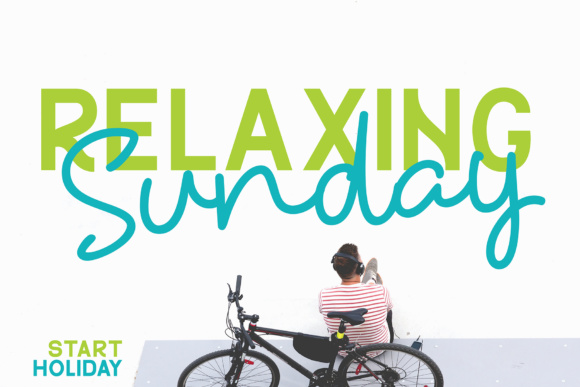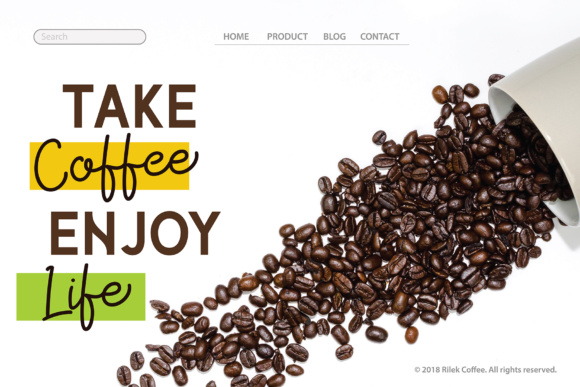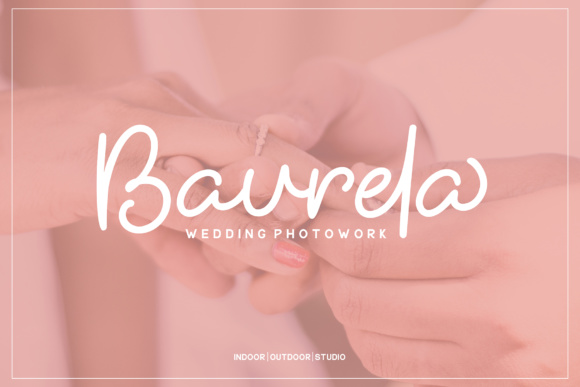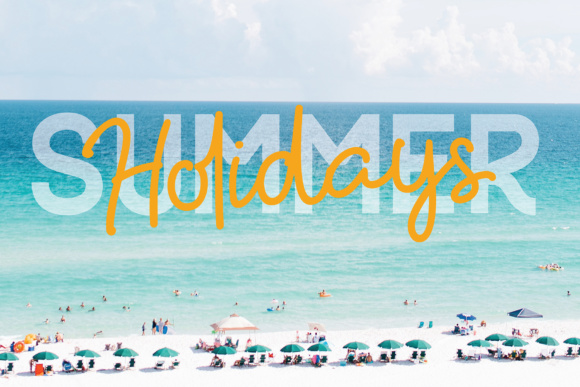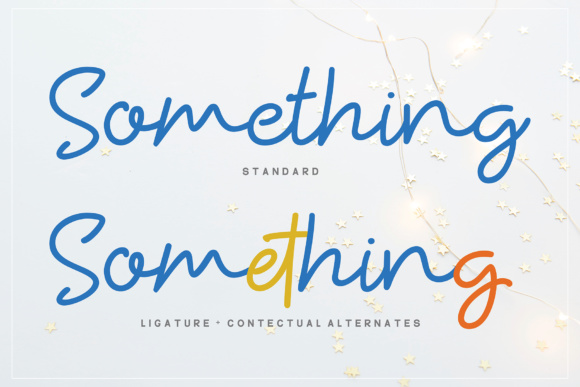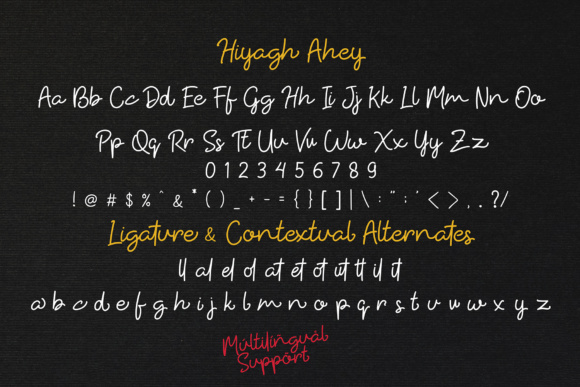
The Perfect Handwritten Touch: Unlocking the Power of the Hiyagh Ahey Font
You know that moment when you’re brainstorming ideas for a new project and the perfect font suddenly pops into your head? That’s exactly what happened when I stumbled upon the Hiyagh Ahey Font. Its unique handwriting style is a breath of fresh air in the world of typography, and I just couldn’t wait to dive in and explore its possibilities.
The Hiyagh Ahey Font is a beautiful, versatile typeface that’s perfect for adding a personal touch to your designs. Whether you’re working on boutique branding, photography, or magazine layouts, this font is sure to elevate your work to the next level. With its two weights, you can experiment with different styles to find the perfect fit for your project. As a designer, you’ll love the flexibility and creativity that the Hiyagh Ahey Font offers.
- Unique Characteristics: Features a unique, handwritten style with a mix of cursive and brush script elements, perfect for creative and artistic applications.
- Kerning and Ligatures: Includes advanced kerning and ligature features for a more polished and professional look.
Designer Review: Hiyagh Ahey Font
I recently had the chance to work with the Hiyagh Ahey font, and I must say it’s an interesting choice for designers looking for a unique, handwritten feel. ✨ The font does a great job of capturing the imperfections of hand-written text, which can add a touch of personality to your designs.
One of the things I like about Hiyagh Ahey is its versatility. ✨ It can be used for a wide range of projects, from branding and marketing materials to editorial content and social media graphics. The font also comes in multiple weights, which gives designers more flexibility when it comes to choosing the right font for their project.
- Unique, handwritten feel that adds personality to designs
- Versatile and can be used for a wide range of projects
- Multiple weights available for added flexibility
- May not be suitable for projects where a clean, professional look is required
- Can be difficult to read at small font sizes
- May not be compatible with all operating systems or devices
Overall, I think the Hiyagh Ahey font is a great choice for designers looking to add some personality to their projects. While it may have some limitations, it’s definitely worth considering for the right project. ⚠️ Just be sure to test the font thoroughly before using it in a final design.
Tip: Use the Hiyagh Ahey Font to add a touch of elegance to your designs, particularly for headings and titles.
Tip: Use the Hiyagh Ahey Font to create custom typography for your brand identity or marketing materials.
Tip: Use the Hiyagh Ahey Font to add a touch of sophistication to your presentations or documents.
The Hiyagh Ahey Font is ideal for:
- Brand identity and marketing materials
- Presentations and documents
Alternatives to Hiyagh Ahey Font
Great Vibes is a modern, elegant script font that’s perfect for adding a touch of sophistication to your designs. It’s ideal for use in logos, branding, and advertising materials where a high-end feel is required.
Compared to Hiyagh Ahey Font, Great Vibes has a more refined and polished look, making it suitable for a wider range of applications. While Hiyagh Ahey Font has a more playful and casual feel, Great Vibes is better suited for formal or professional designs.
Alex Brush is a beautiful, handwritten script font that’s great for adding a personal touch to your designs. It’s perfect for use in invitations, cards, and other materials where a touch of elegance is required.
Can I customize the Hiyagh Ahey Font to fit my design needs?
Yes, the Hiyagh Ahey Font is fully editable, allowing you to customize the font to fit your design needs. You can use font editing software, such as FontLab or Glyphs, to modify the font’s glyphs, spacing, and other characteristics. However, please note that any customizations may affect the font’s compatibility with certain design software or operating systems.